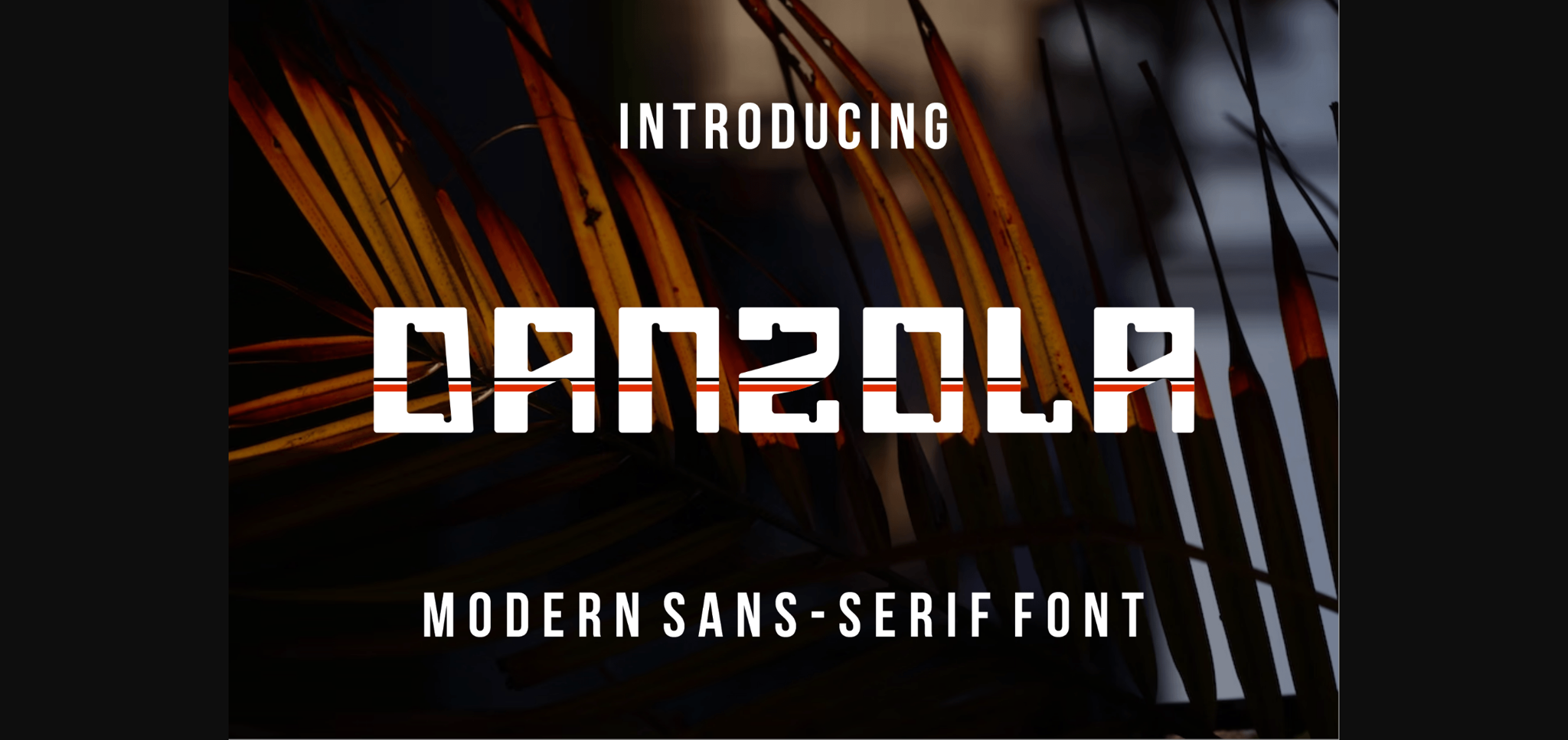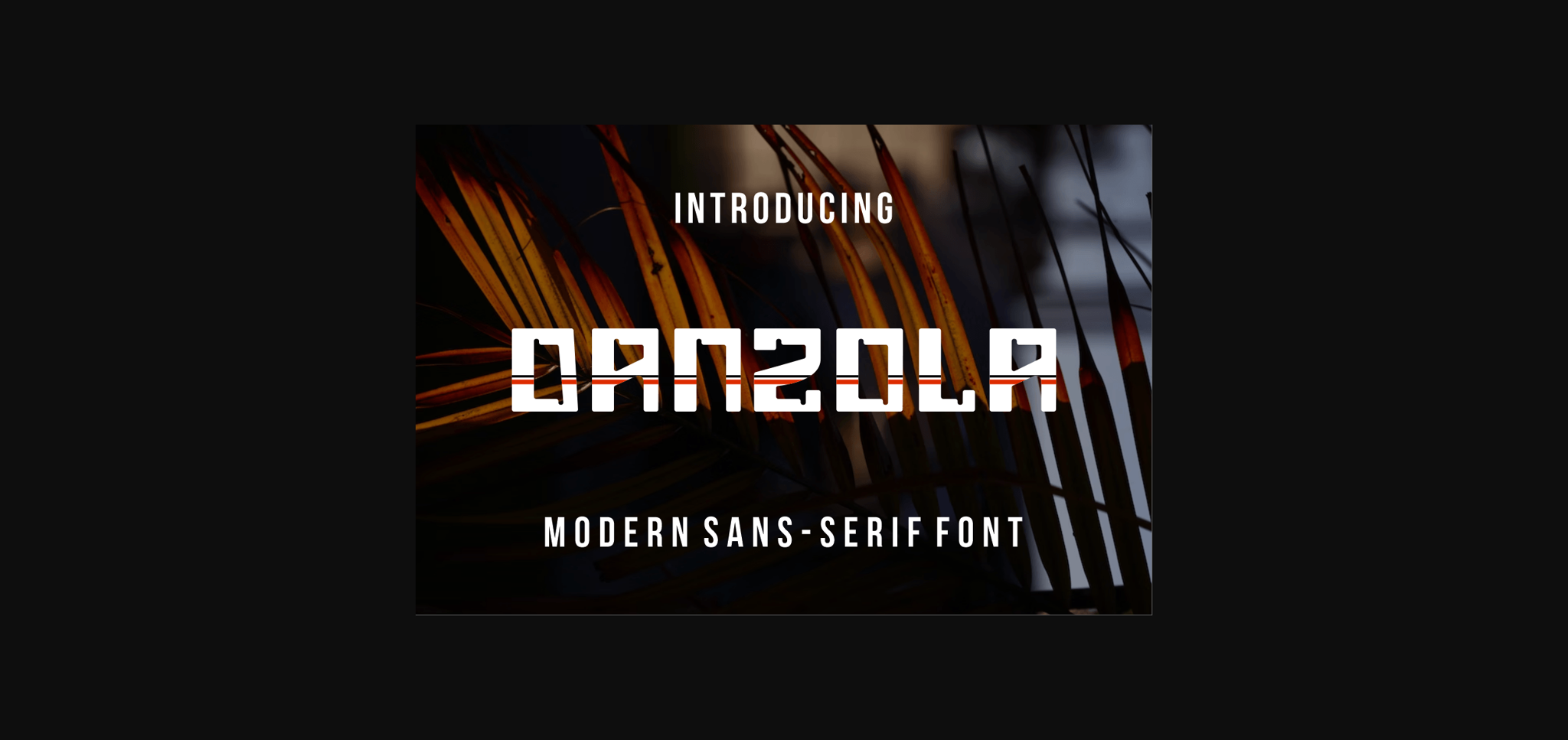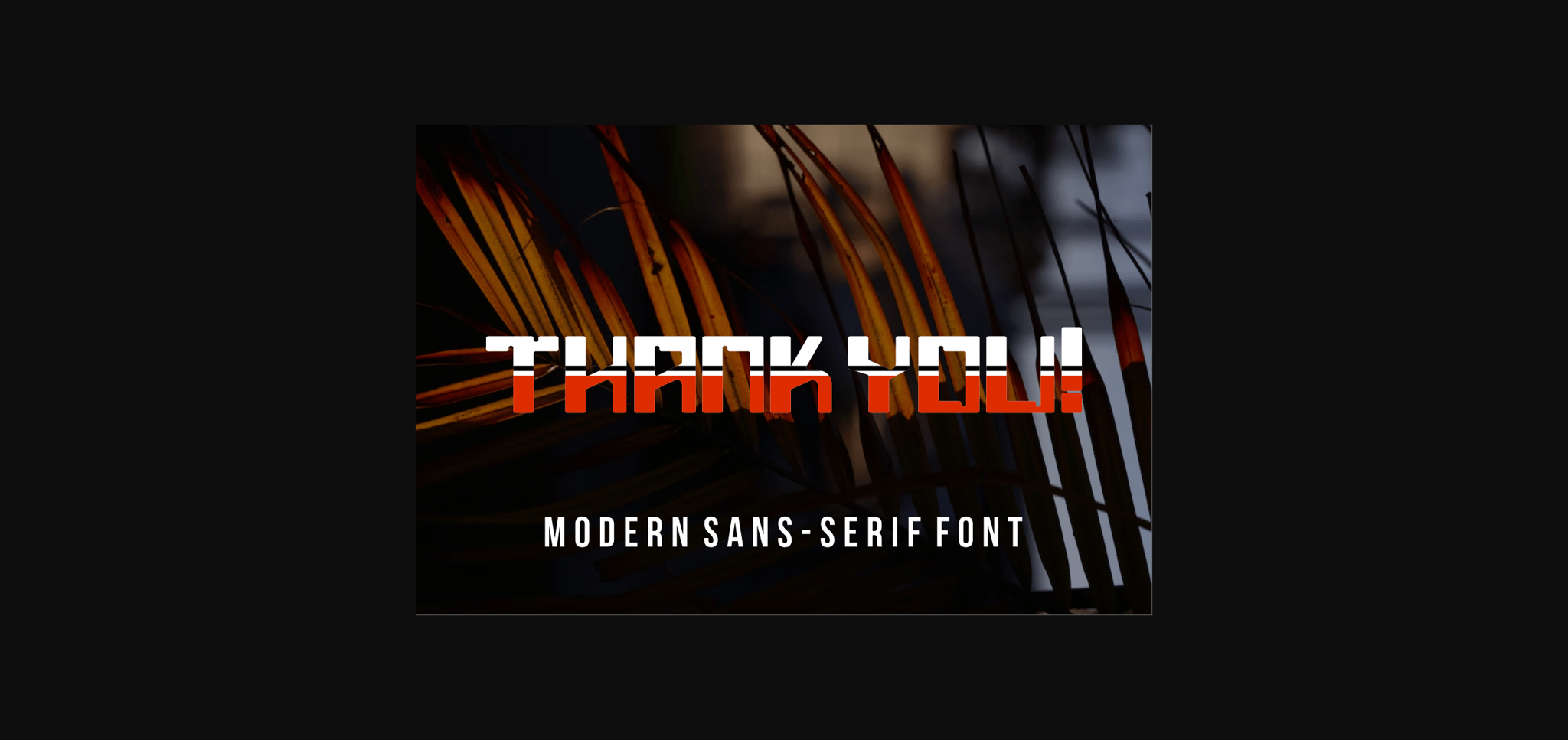
About Danzola Font
Danzola is a modern sans serif font that feels charming and bold. This font is perfectly suited for a wide variety of projects, such as signature, stationery, logo, wedding, typography quotes, magazine or book cover, website header, clothing, branding, packaging design, and more.